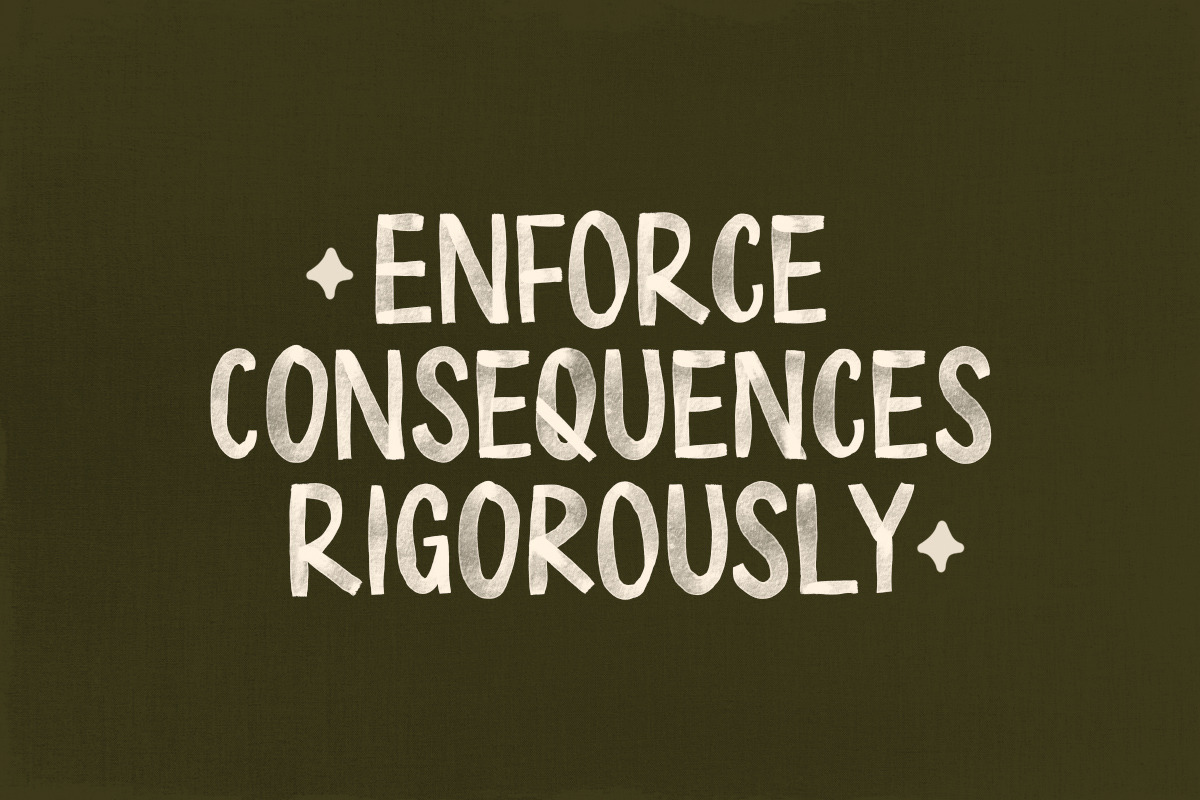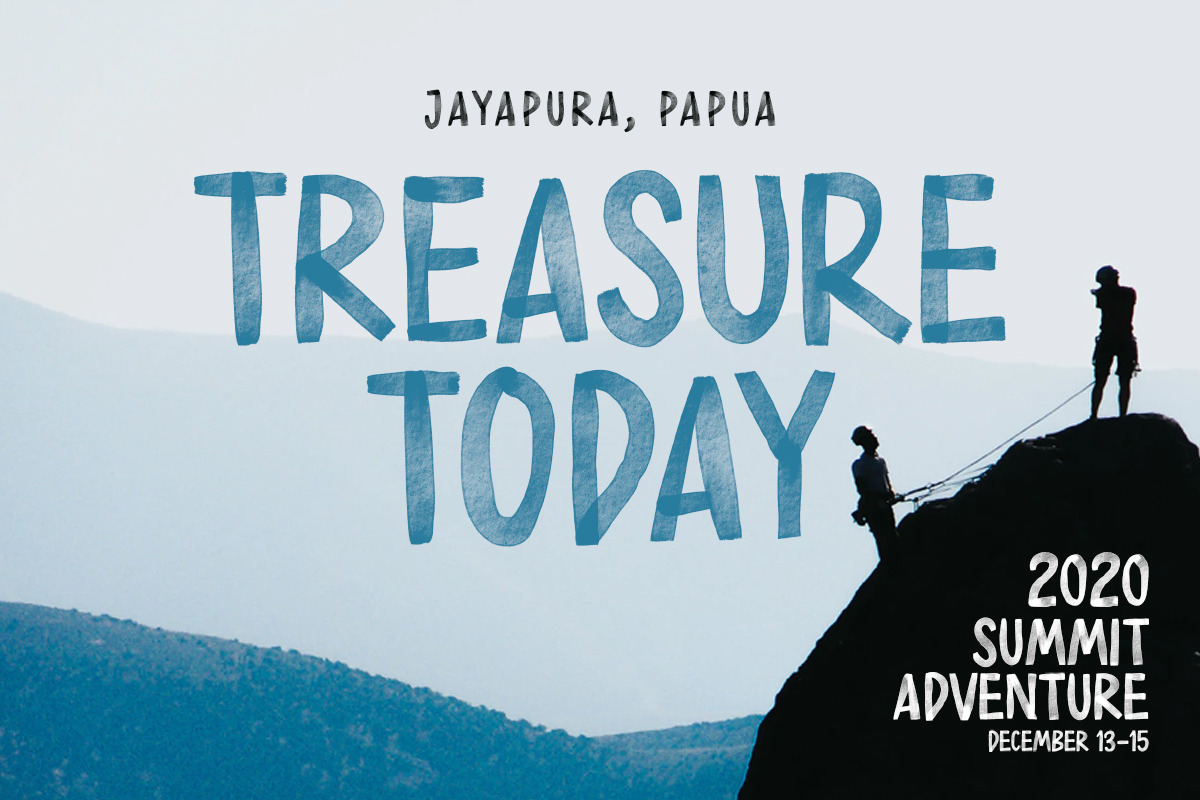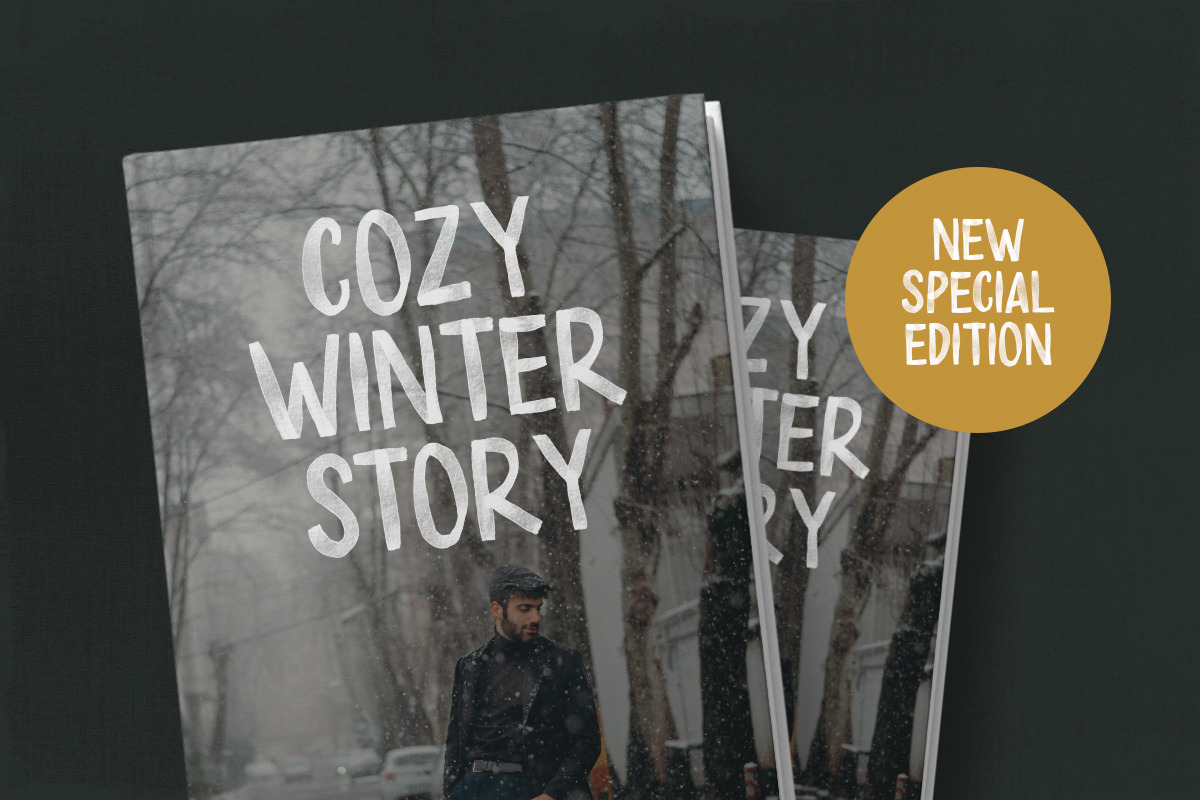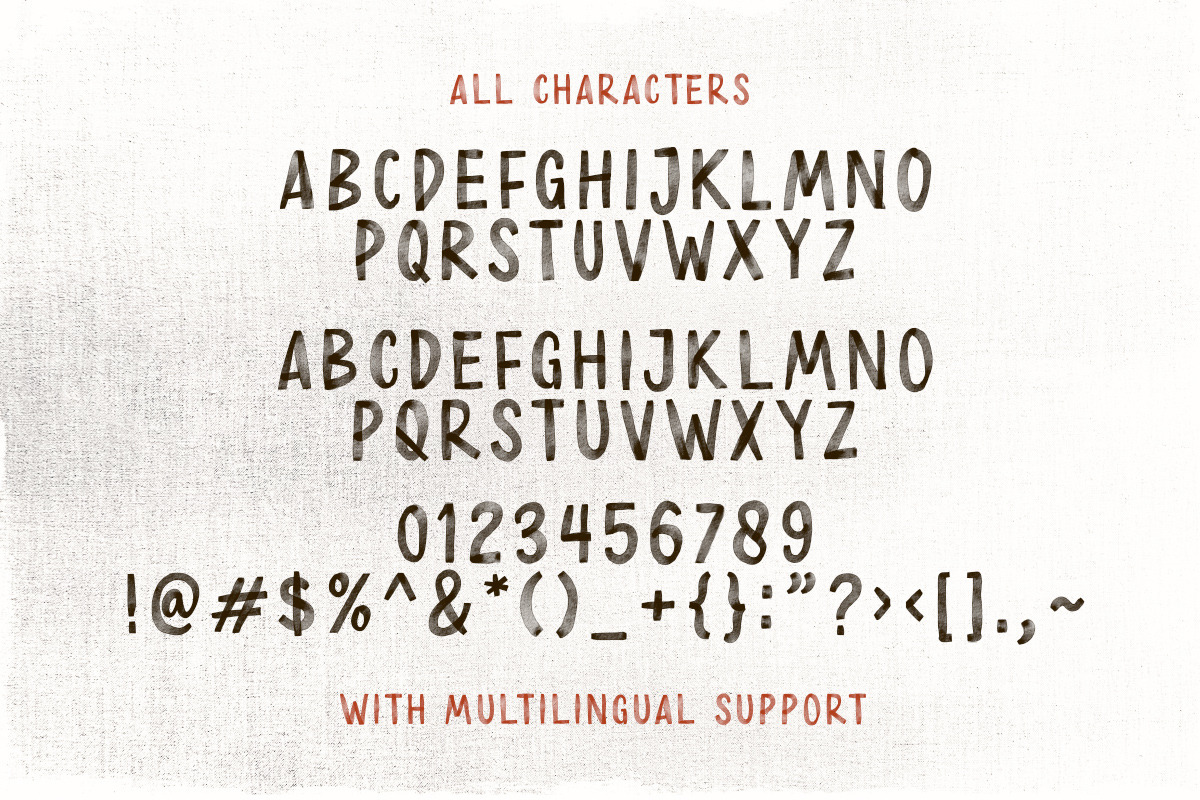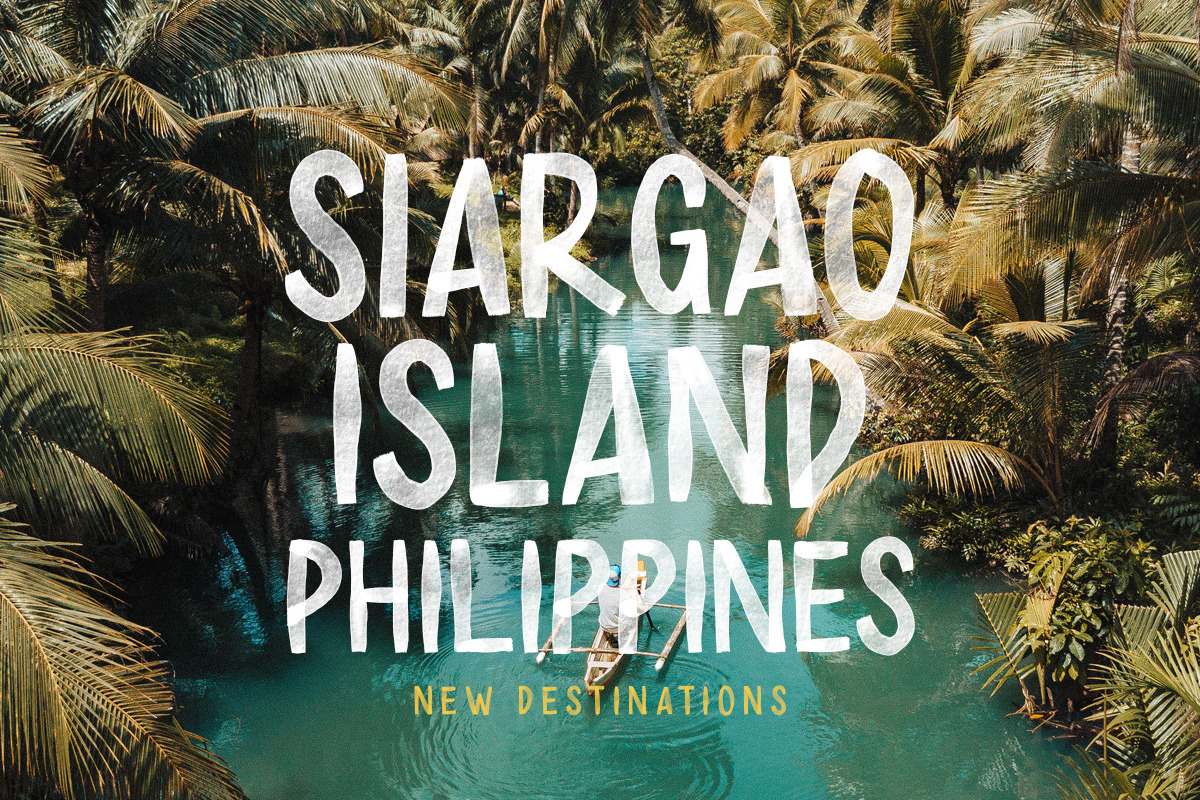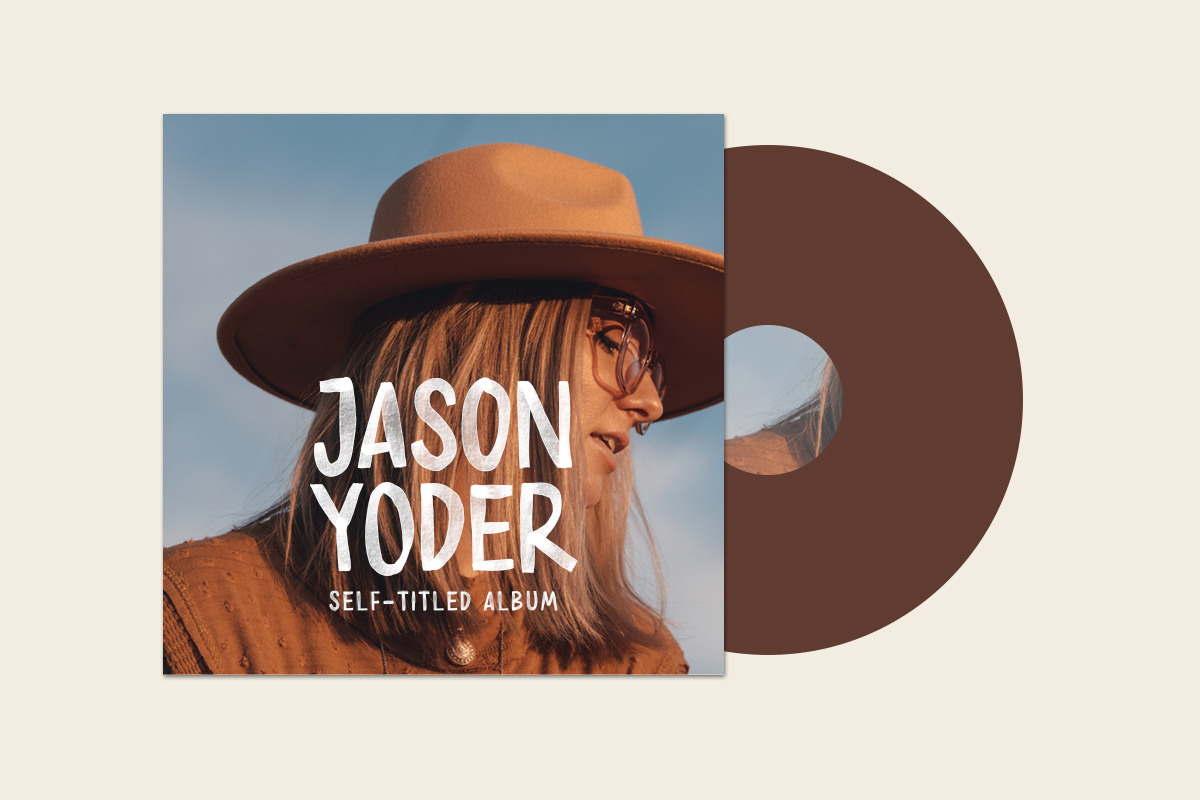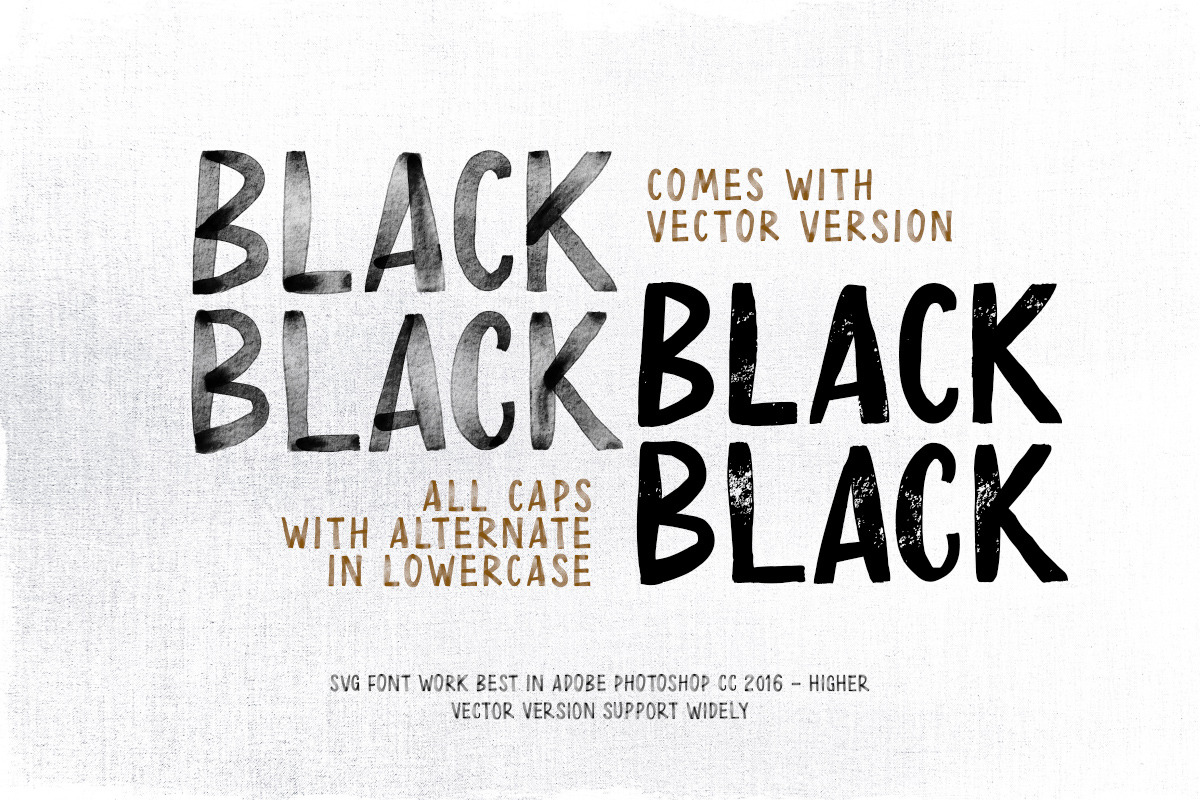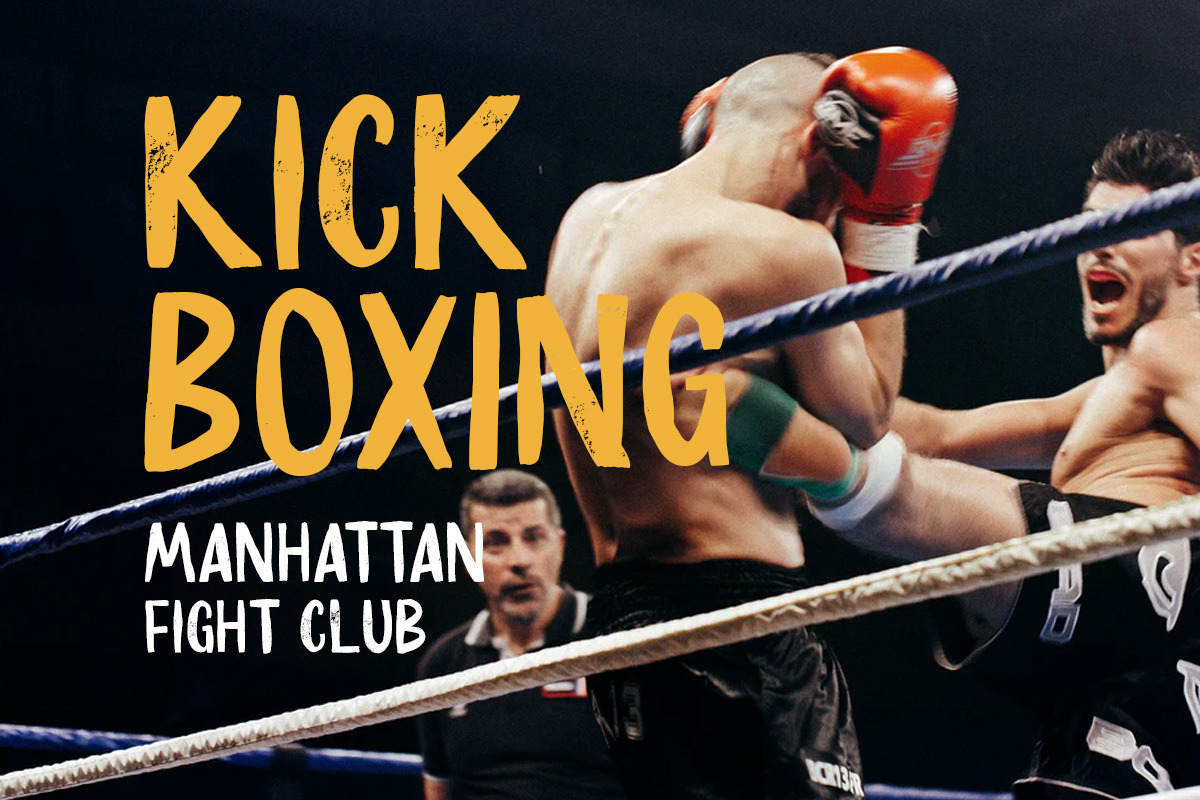
Just Because - SVG Sans
Introducing, Just Because - a textured SVG Sans Serif typeface. Available in two types, solid version and transparent version. This type of font perfectly made to be applied especially in headlines which is need a standout font, and the other various formal forms such as invitations, labels, logos, magazines, books, greeting / wedding cards, packaging, fashion, make up, stationery, novels, labels or any type of advertising purpose.